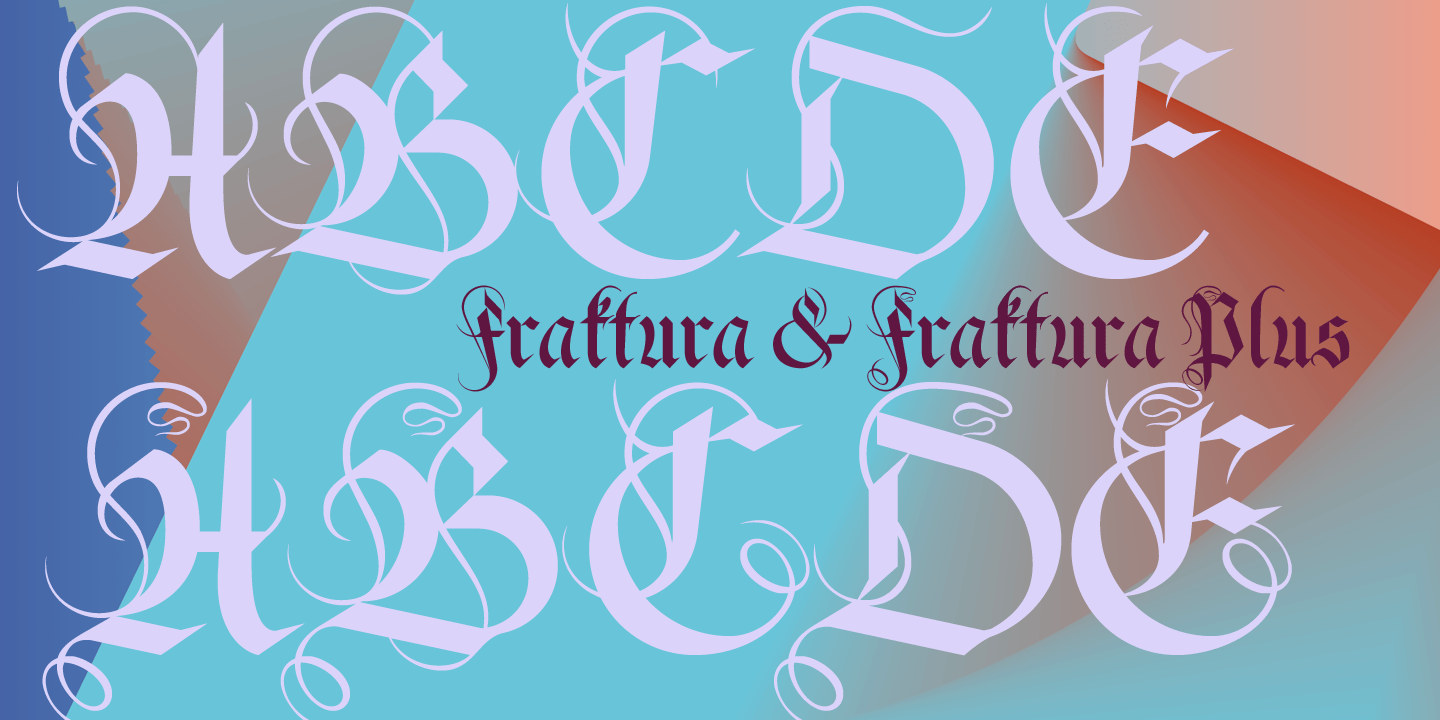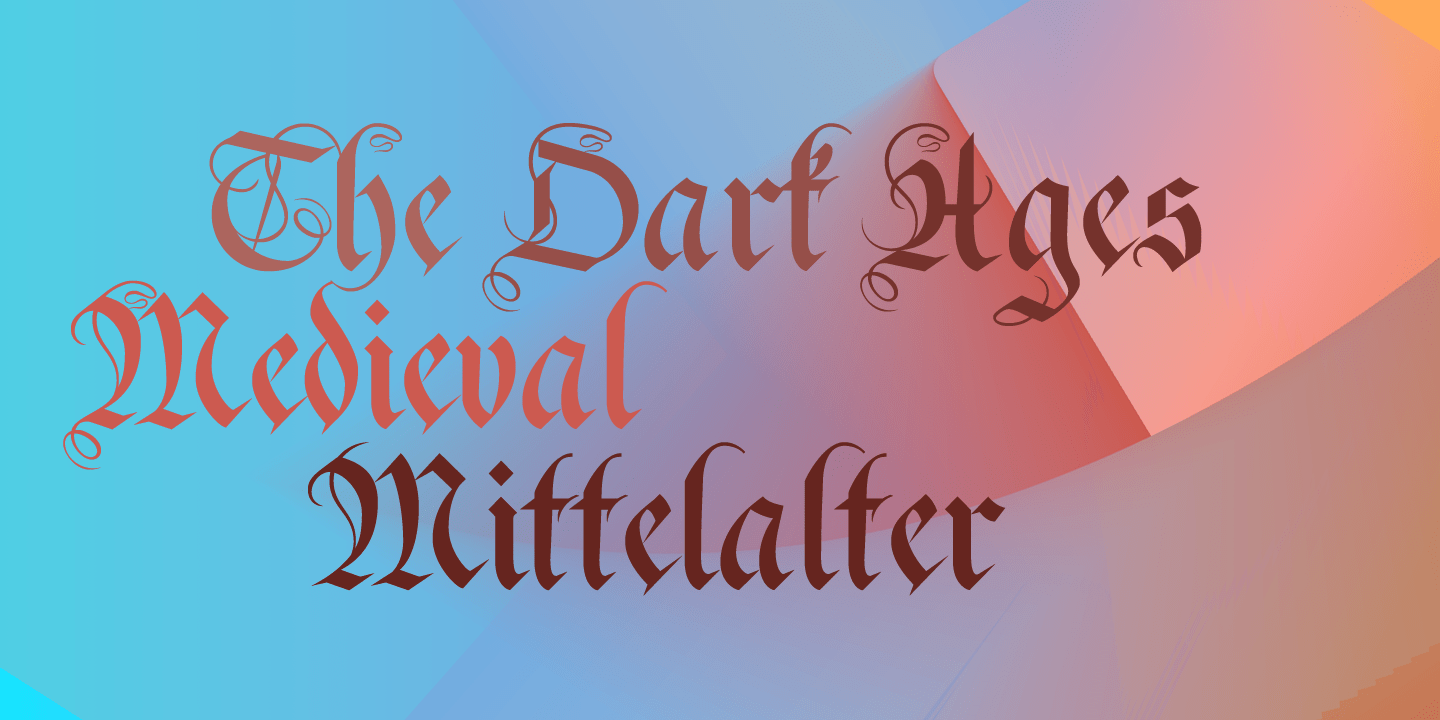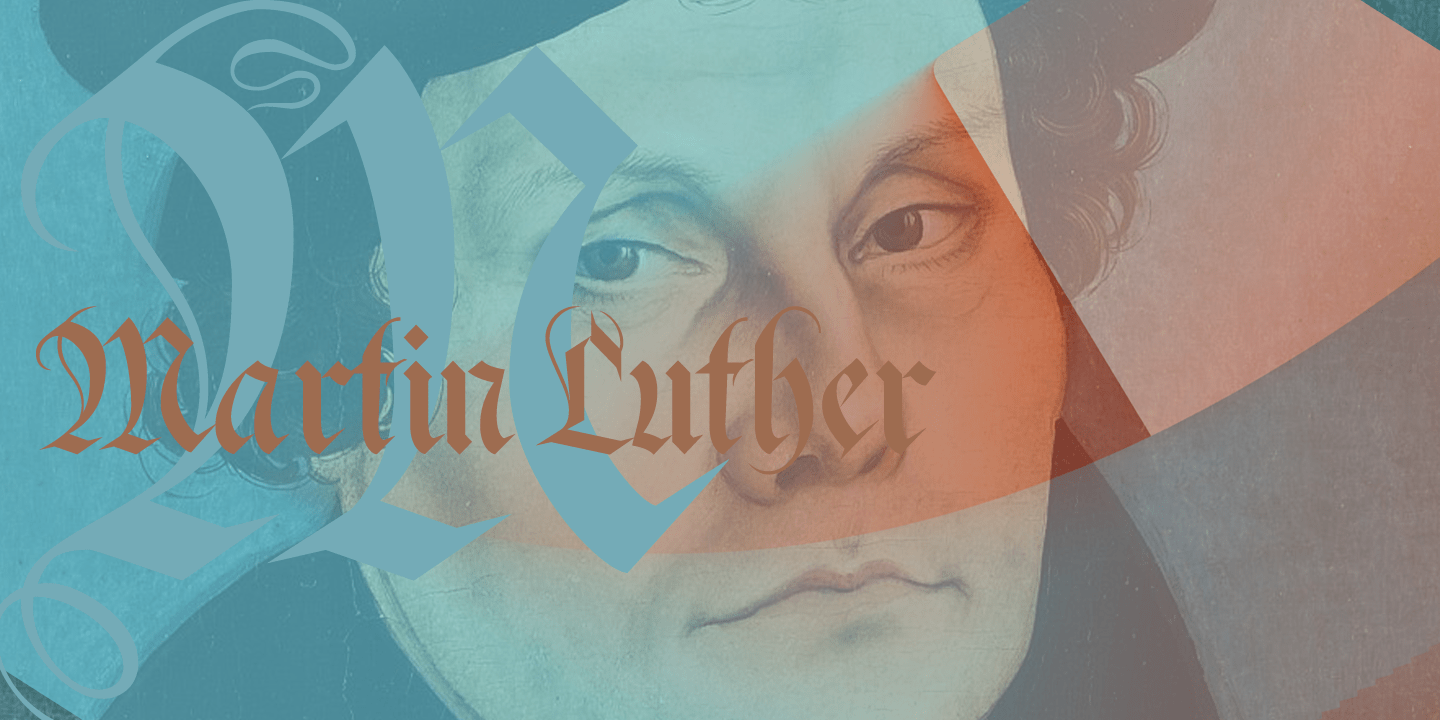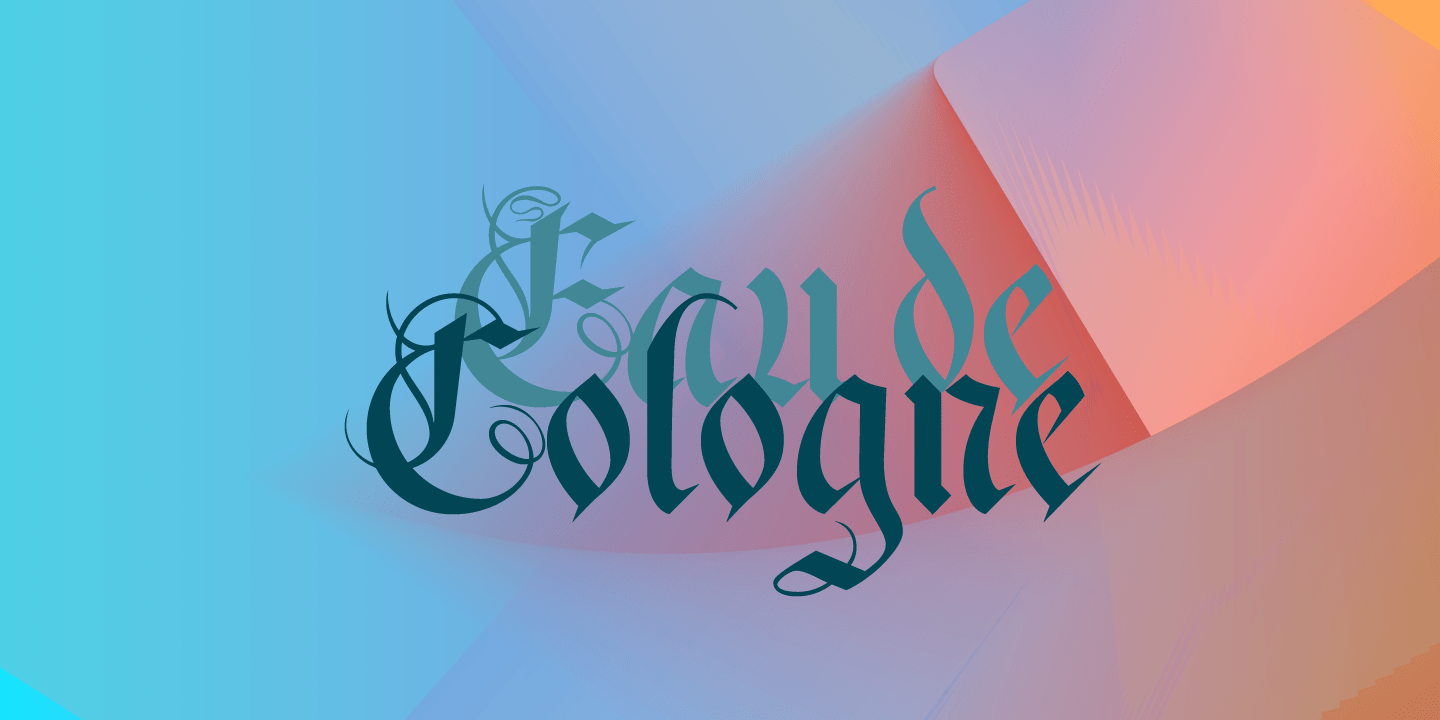
Fraktura
Font Family by Wiescher Design
Fraktura and Fraktura Plus is a set of classical Fraktur (Blackletter) in a modern interpretation. The two fonts differ in the amount of embellishments and can and should be mixed. I only sell the pair, but for a fair price.